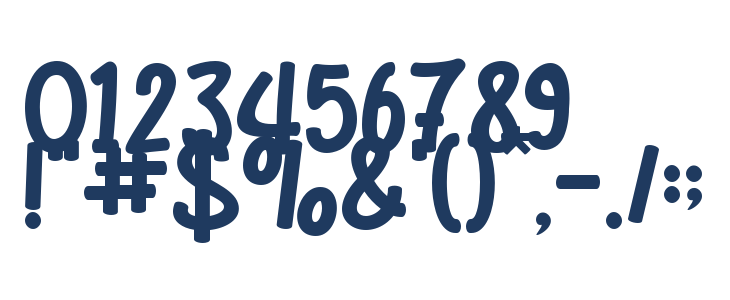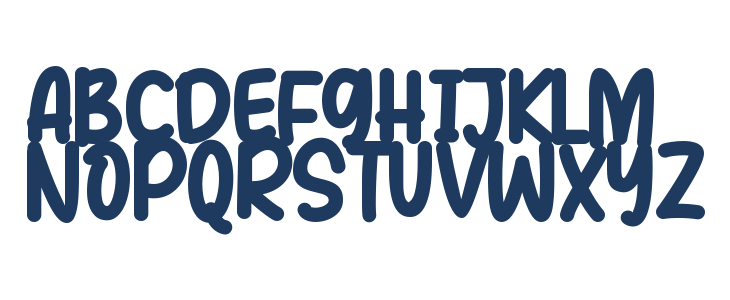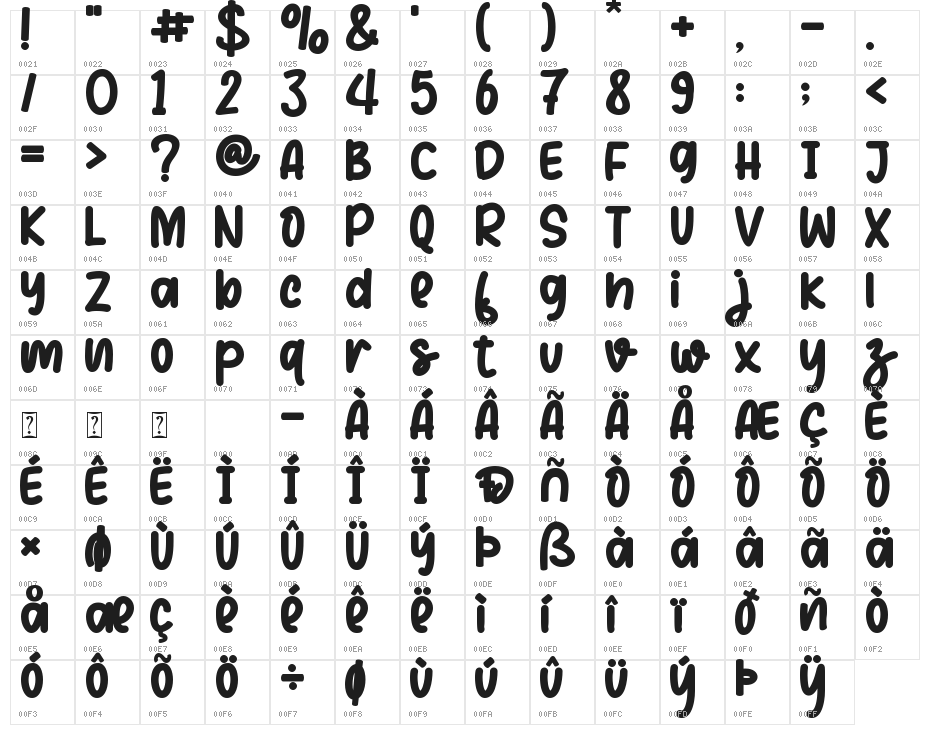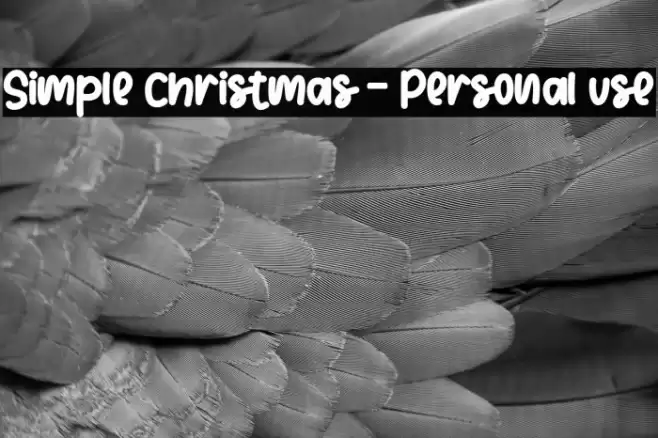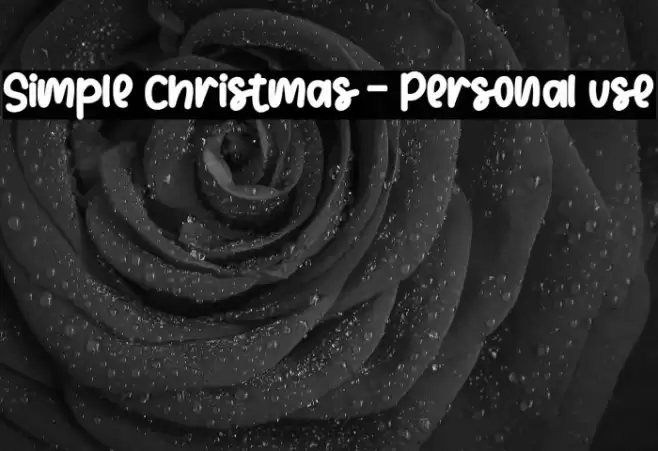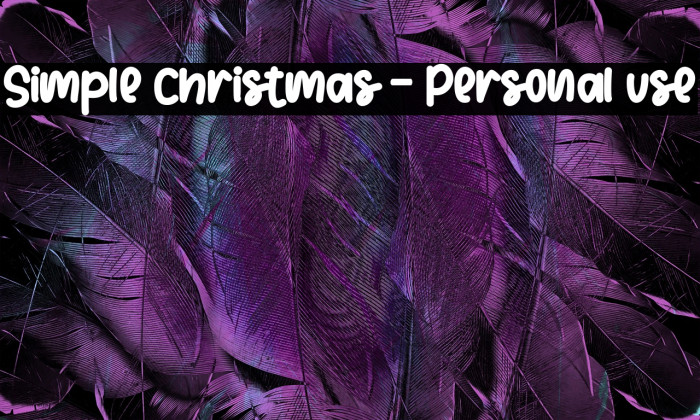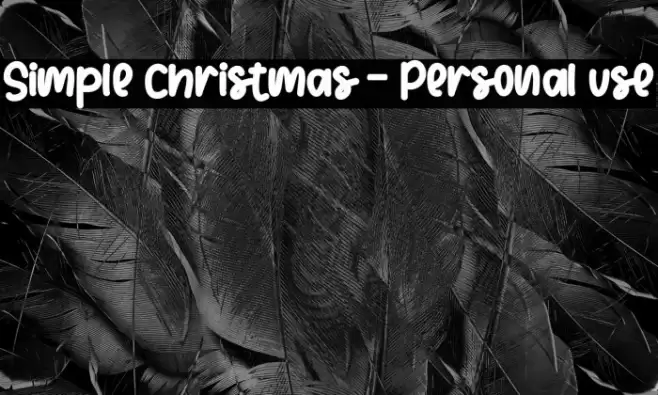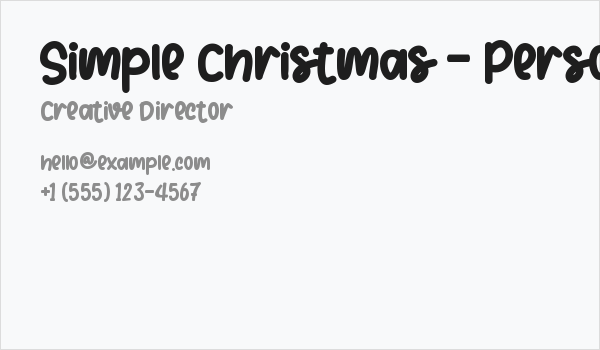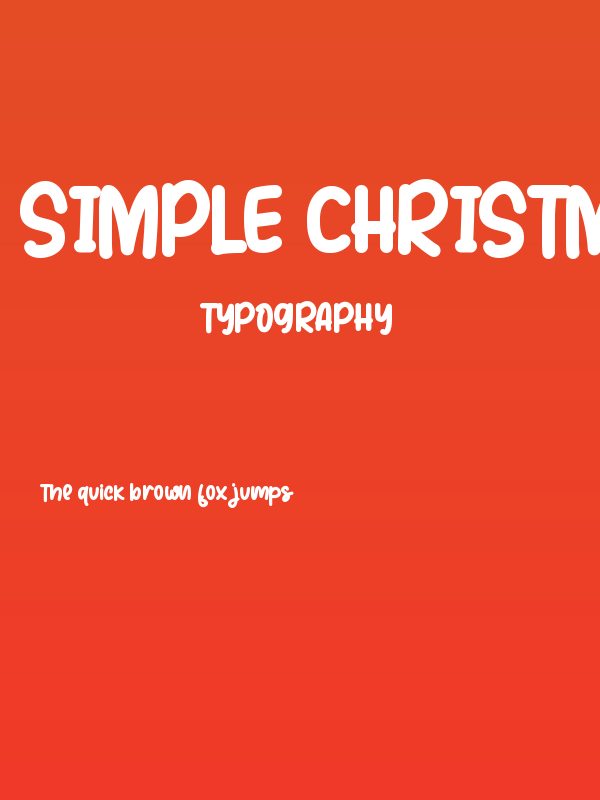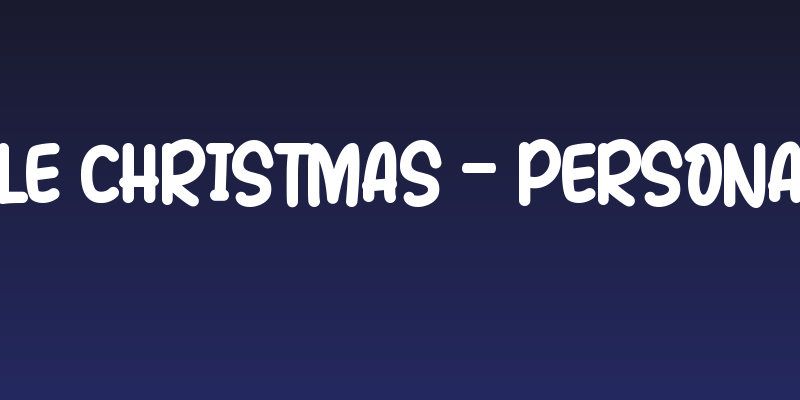
Simple Christmas - Personal use Font
Simple Christmas - Personal use Description
A playful, handwritten style font with rounded, casual letterforms and a slightly irregular, informal appearance.
| Overall Style | Casual, Playful, Informal |
| Use Case | Headlines, Body text, Logos, Creative projects |